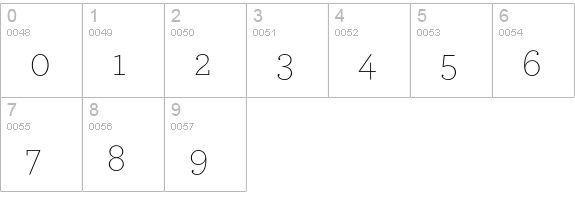
ArcherPro Extra Light Font Details
ArcherPro Extra Light is a refined, elegant variant in the ArcherPro typeface family \xE2\x80\x94 well suited to elegant body text, refined sub-headings, and luxury branding.
ArcherPro Extra Light is a modern and sleek typeface that exudes elegance and sophistication. With its clean lines and minimalist design, this font is perfect for creating a stylish and contemporary look in your projects. The Extra Light weight of ArcherPro adds a delicate touch to your text, making it ideal for use in headings, titles, and other display purposes. What makes ArcherPro Extra Light even more appealing is that it is available for free download at FontsMarket.com. Whether you're a designer looking to add a touch of refinement to your work or a creative enthusiast in search of a versatile font, ArcherPro Extra Light is sure to impress with its versatility and charm. Download it today and elevate your designs with this exquisite typeface.